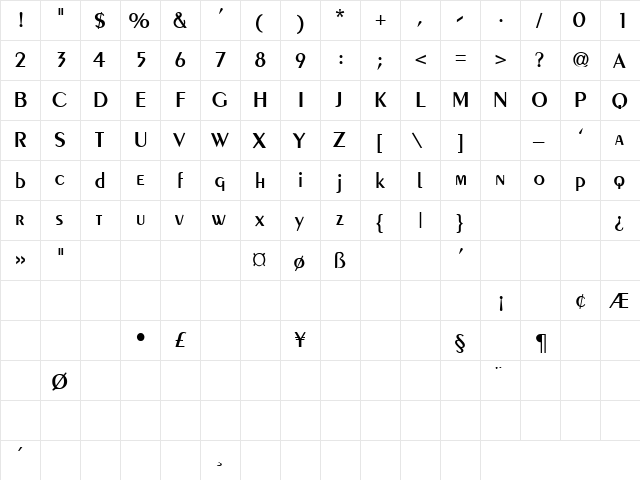
Custard Pie 10 Regular
Design Context for Custard Pie 10 Typeface
Custard Pie 10 is a composed and adaptable typeface that performs quietly and consistently across a wide range of design contexts.